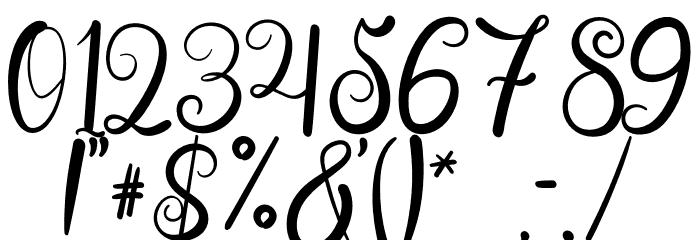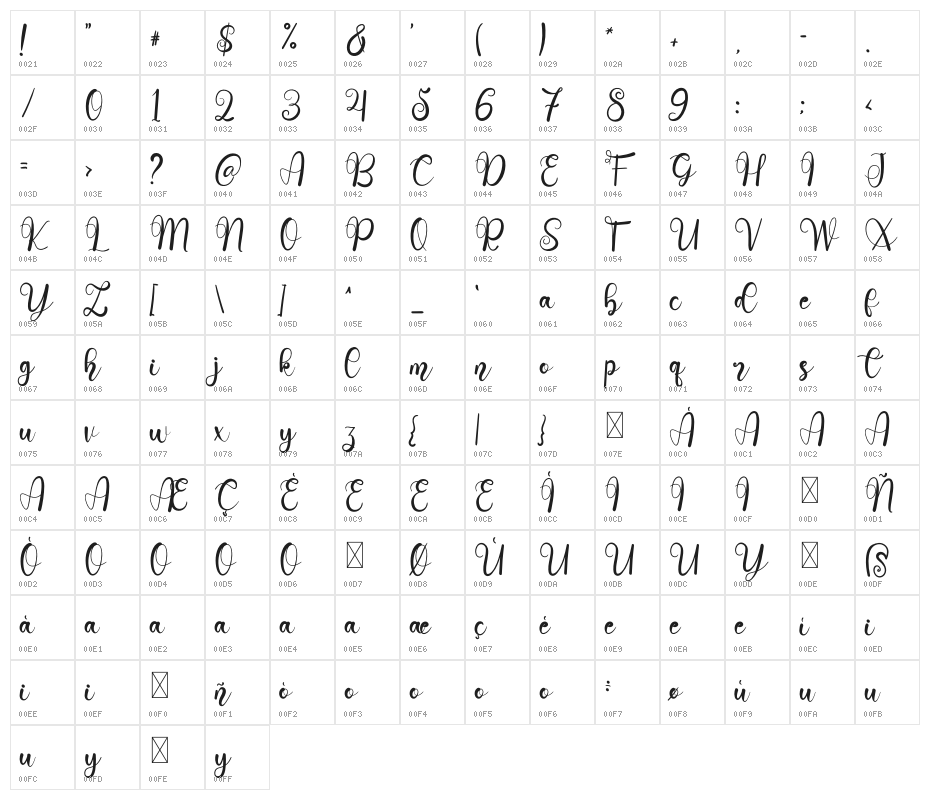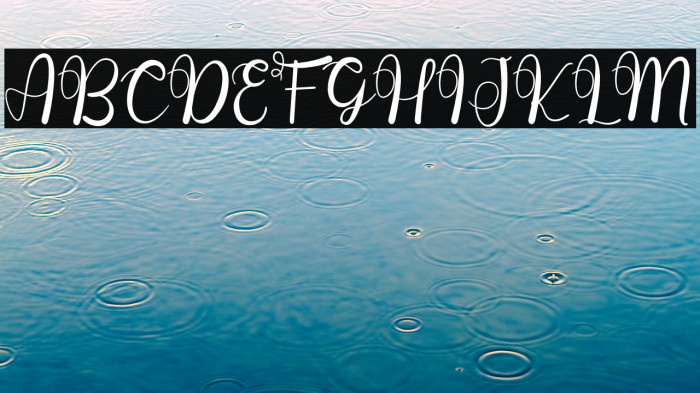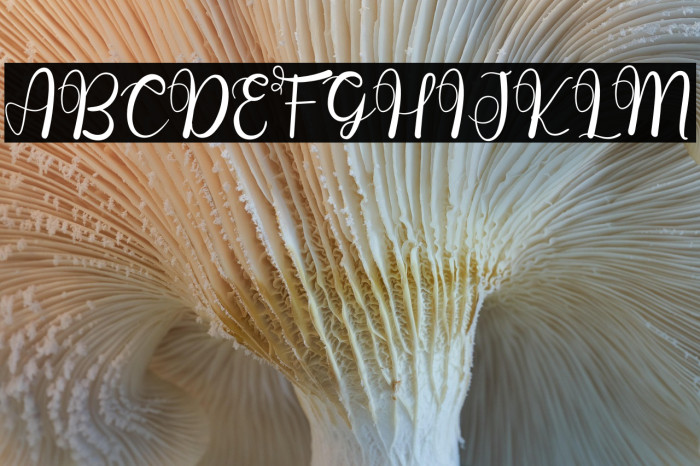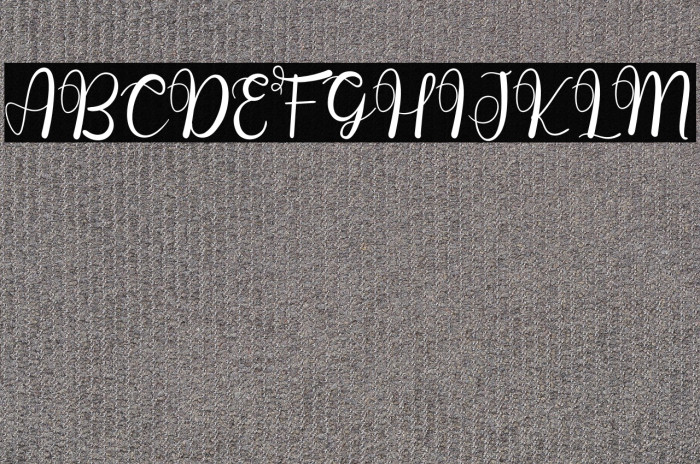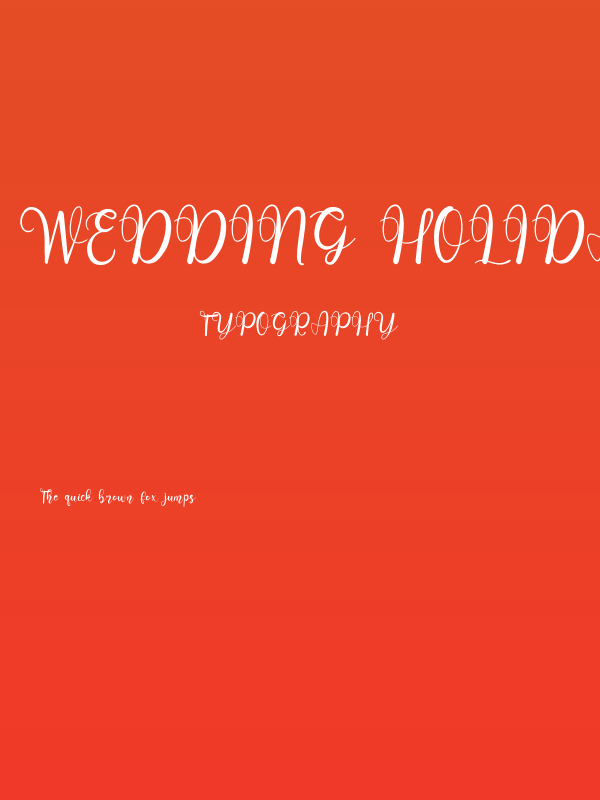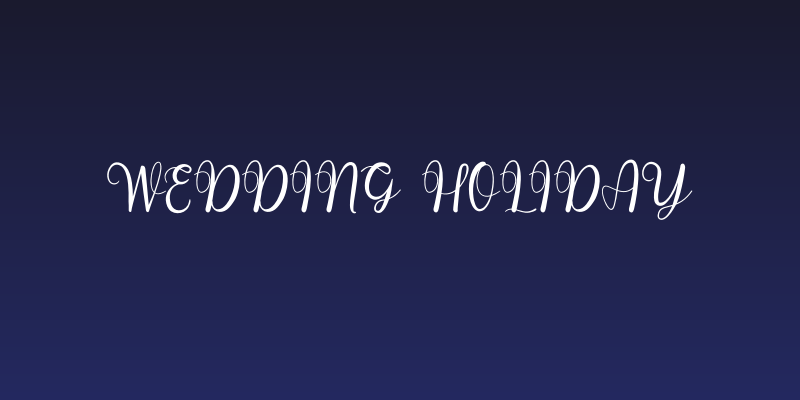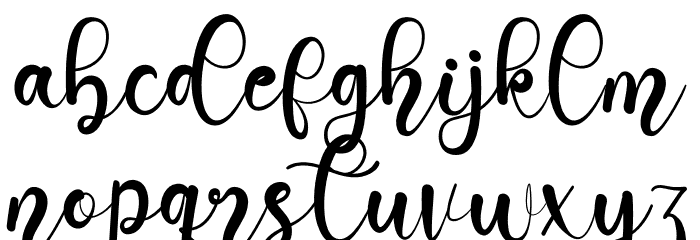
Wedding Holiday Font
Wedding Holiday Description
This font exudes elegance and sophistication with its flowing, cursive style. Each letter is crafted with intricate loops and swirls, creating a sense of movement and grace. The uppercase letters are particularly ornate, featuring elaborate flourishes that add a touch of luxury. The lowercase letters maintain a consistent style, with smooth curves and a slightly playful character. The numerals are equally stylish, incorporating subtle curves that complement the overall design. Special characters are thoughtfully designed to match the font's aesthetic, making it versatile for various uses. This font is perfect for projects that require a touch of elegance and charm.
| Use Case | Invitations, Branding, Decorative text |
| Proposed Projects | Ideal for wedding invitations, holiday cards, branding, and elegant packaging. |